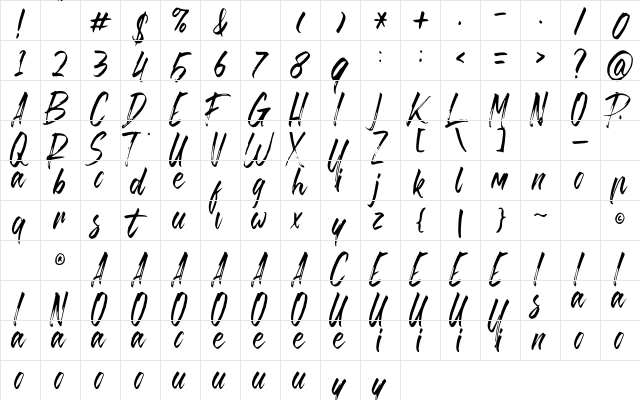
Brusthy Regular
| Foundry | Ardyanatypes Studio |
| Designer | Ardyanatypes |
Design Context for Brusthy Typeface
Brusthy is a composed and adaptable typeface that performs quietly and consistently across a wide range of design contexts.